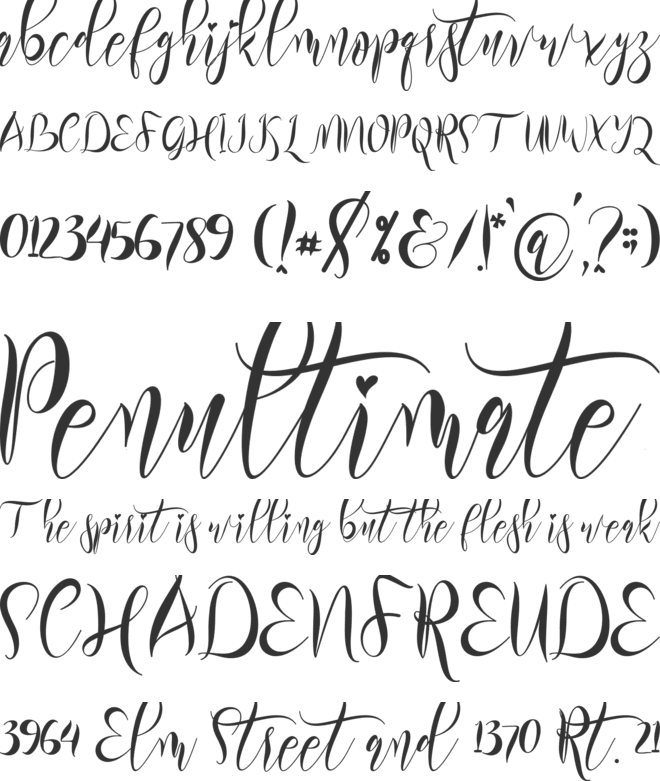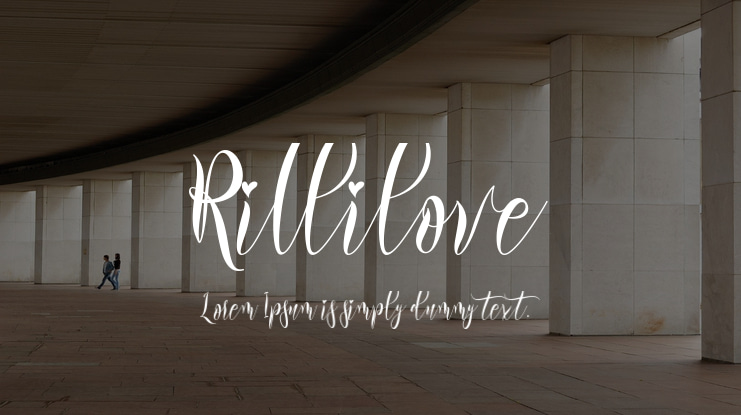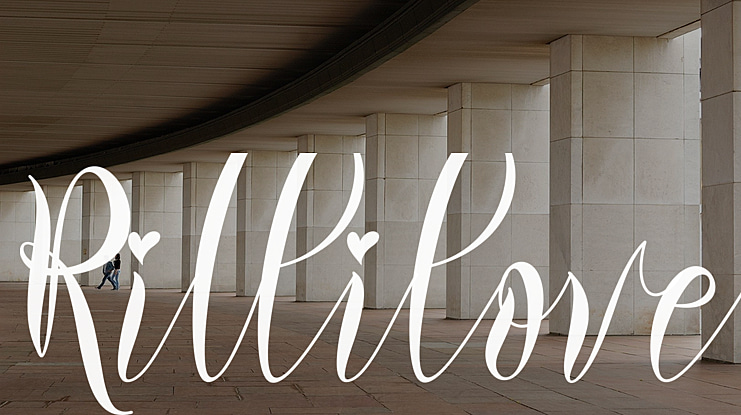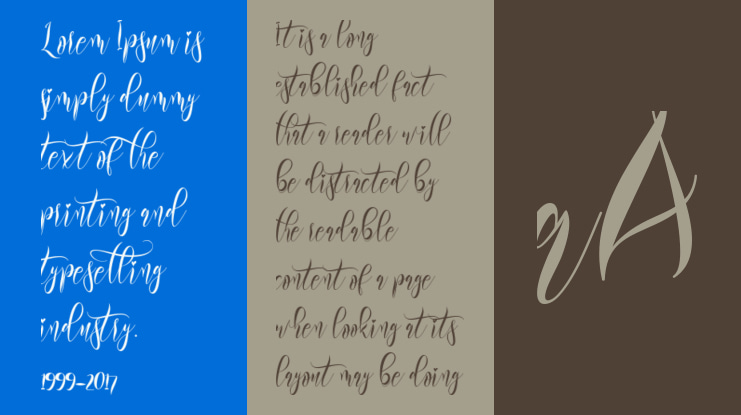
Rillilove Font
This pretty font is called Rillilove. Rillilove is a very beautiful, refined, elegant, and high-quality font. This font is made with great love. This font can make your work more beautiful and elegant. This font is perfect for all wedding needs, marketing your products, marketing all your business, creating quotes, invitation cards, logos, branding, updating on holiday moments, status updates on social media, and more.
Rillilove font preview